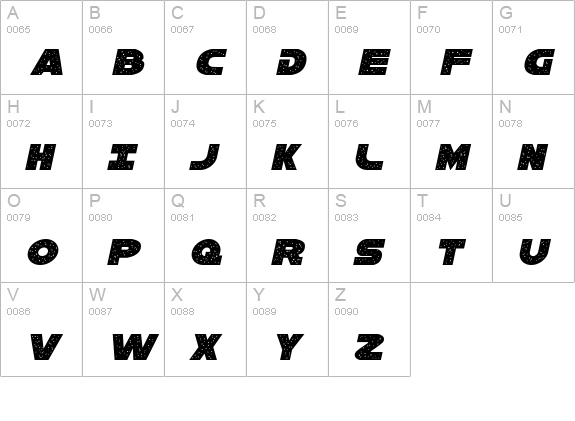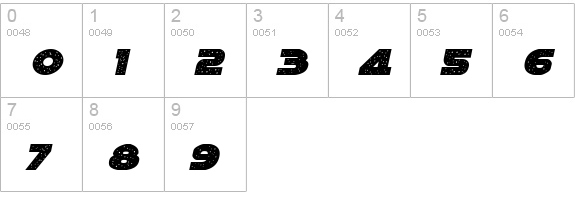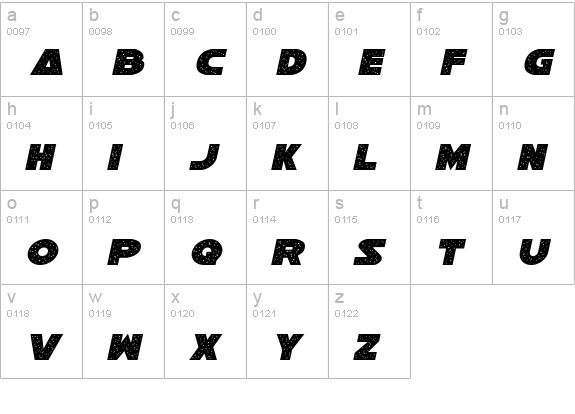
Galaxy 1 Condensed Italic is a distinctive, condensed-width, italic variant in the Galaxy typeface family \xE2\x80\x94 well suited to design and typography projects.
Galaxy 1 Condensed Italic font is a sleek and modern typeface that exudes elegance and sophistication. Its condensed design makes it perfect for creating a clean and polished look in your projects. The italic style adds a touch of flair and dynamism to your text, making it stand out with a sense of movement and style. This versatile font is ideal for a wide range of design applications, from editorial layouts to branding materials and everything in between. Its clean lines and sharp angles give it a contemporary feel that is sure to make a bold statement. Best of all, Galaxy 1 Condensed Italic font is completely free to download at FontsMarket.com, making it accessible to everyone looking to add a touch of modern sophistication to their projects. Don't miss out on this stylish and versatile font that will elevate your designs to the next level.